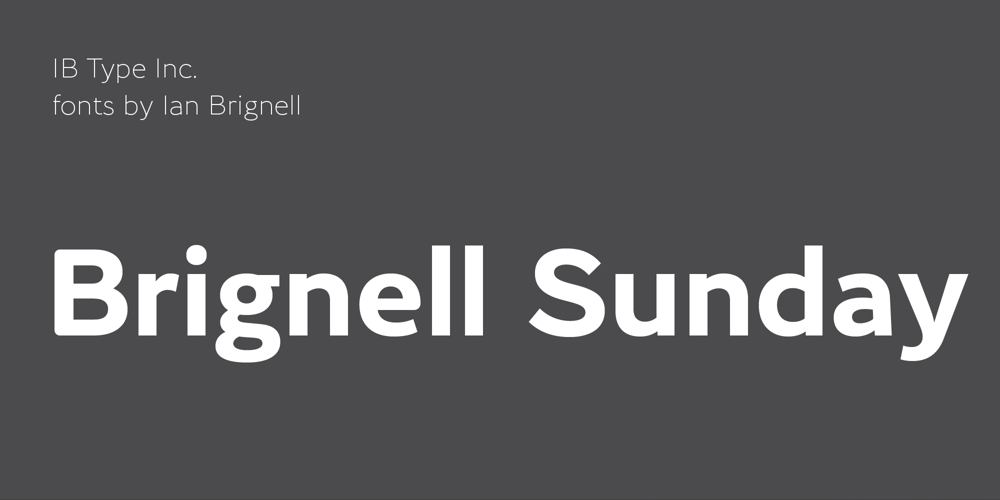
Brignell Sunday Font Family was designed by Ian Brignell and published by IB TYPE Inc.. Brignell Sunday contains 8 styles and family package options. BRIGNELL SUNDAY is an eight font family designed by Ian Brignell.A relaxed, easy-reading companion for any day of the week.A clean, modern, friendly sans serif characterized by an open style with occasionally rounded corners, occasional curved junctures on diagonals and a slightly sloped lower case A. Brignell Sunday was born in 2006 and was inspired by corporate custom font ideas Ian designed for an LG Electronics sub-brand called Best Shop. Extended Latin set.